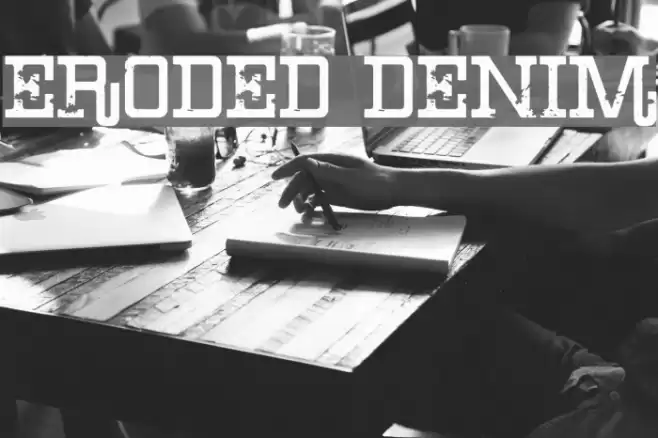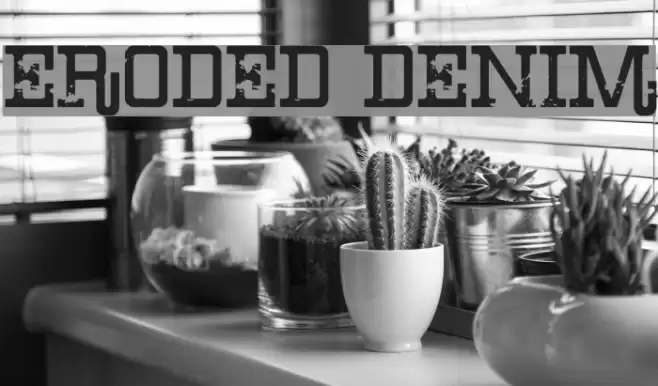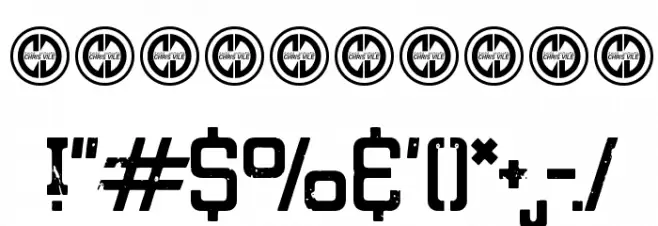
Eroded Denim Font
Eroded Denim Description
This font features a distressed, eroded style that gives it a rugged and worn appearance. The characters are bold and have a slab serif design, with each letter showing signs of wear and tear, adding to its vintage charm. The uppercase letters are prominent, while the lowercase letters maintain the same eroded aesthetic. The numbers and special characters follow suit, providing a cohesive look across the entire typeface. This font is ideal for projects that require a gritty, industrial feel, such as posters, album covers, or branding for outdoor or adventure-themed products.
A distressed, slab serif font with a rugged, worn appearance from Uncategorized fonts.
- Proposed Projects: Ideal for posters, album covers, branding for outdoor or adventure-themed products.
- Overall Style: Vintage